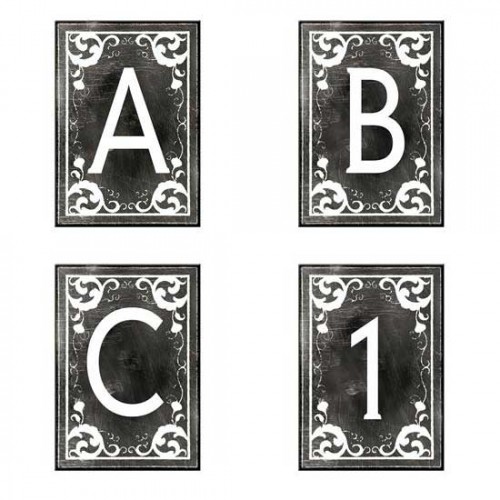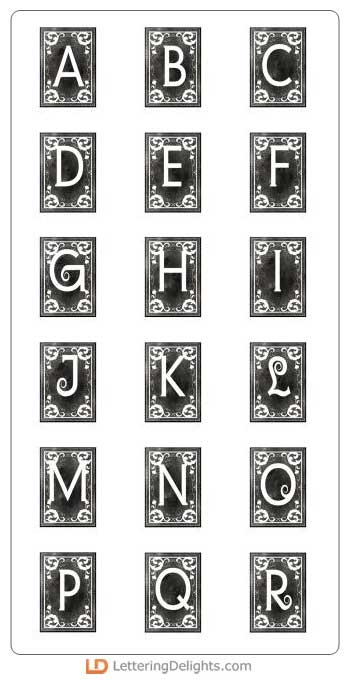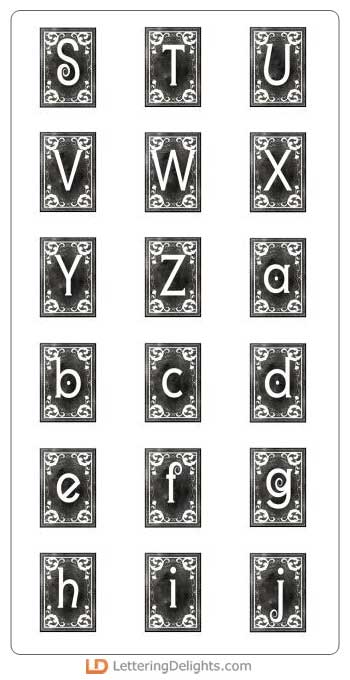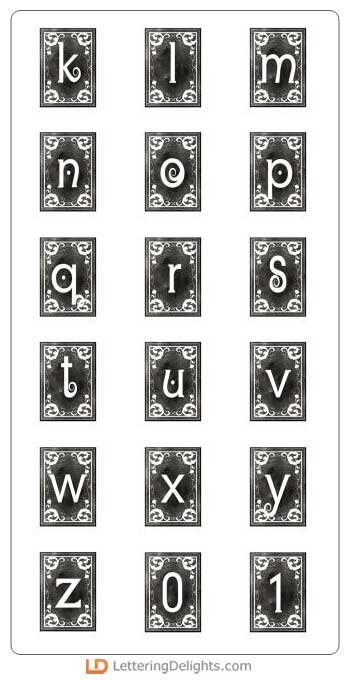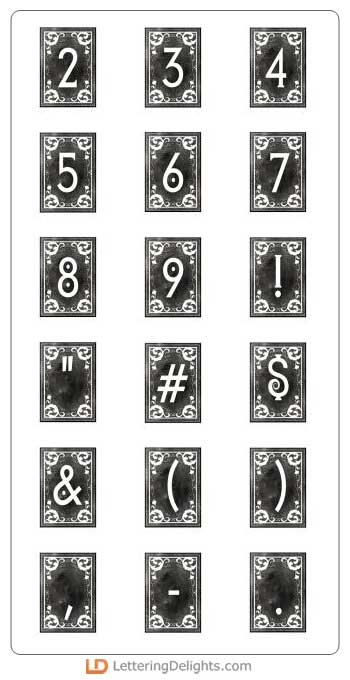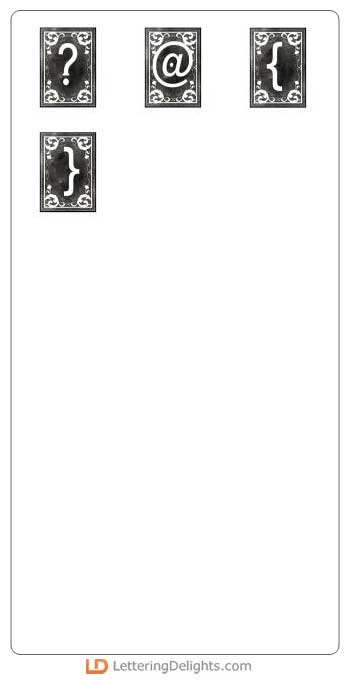
Silent Movie alphabet is a lot of fun, as a tribute to the first movies. Capture your next story with this great alphabet created just for a unique scrapbook layout! All images are 300 dpi.